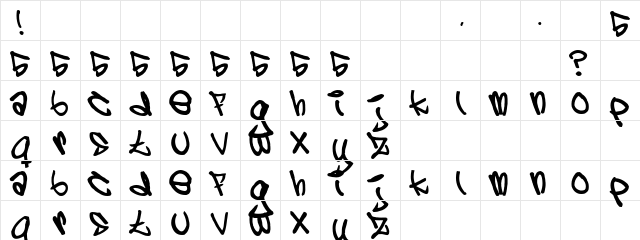
5 cent Regular
Design Context for 5 cent
5 cent is a composed and adaptable typeface that performs quietly and consistently across a wide range of design contexts.